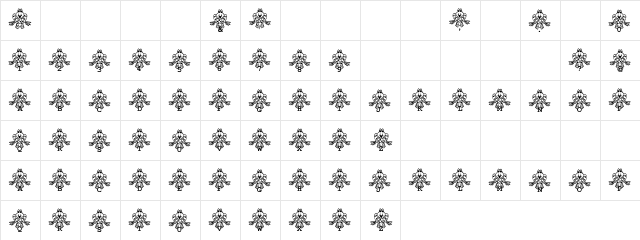
Frogii's Froggy Regular
Design Context for Frogii's Froggy Typeface
Frogii's Froggy is a composed and adaptable typeface that performs quietly and consistently across a wide range of design contexts.
Pro Tip: Use Frogii's Froggy in both headline and body roles to test its range before committing to a single application.